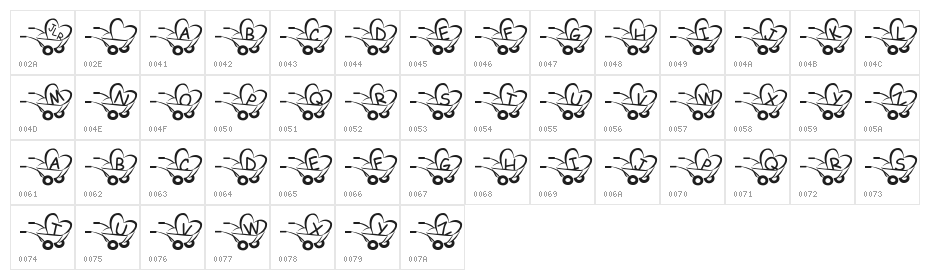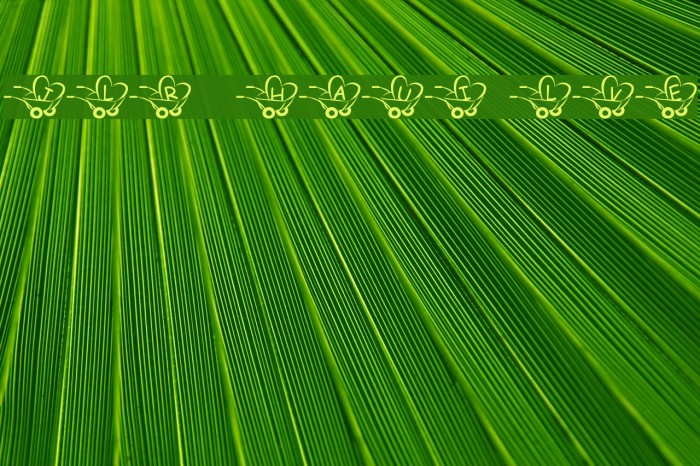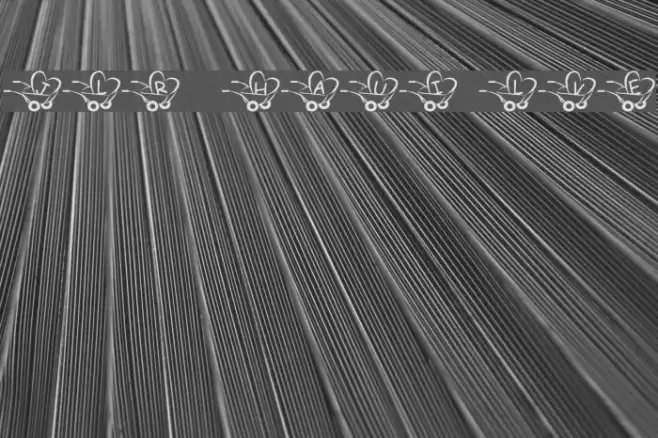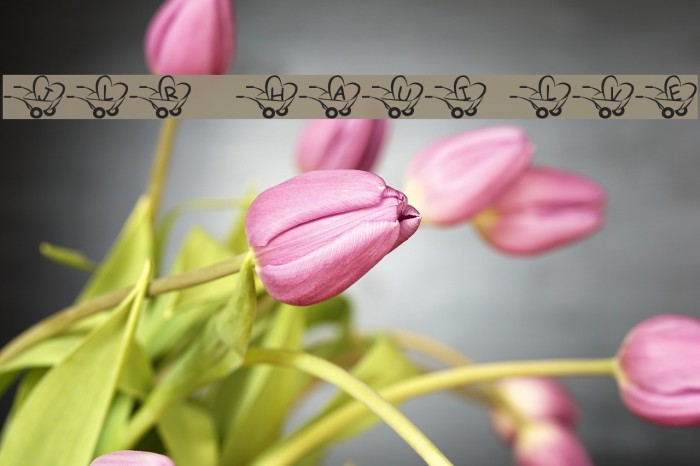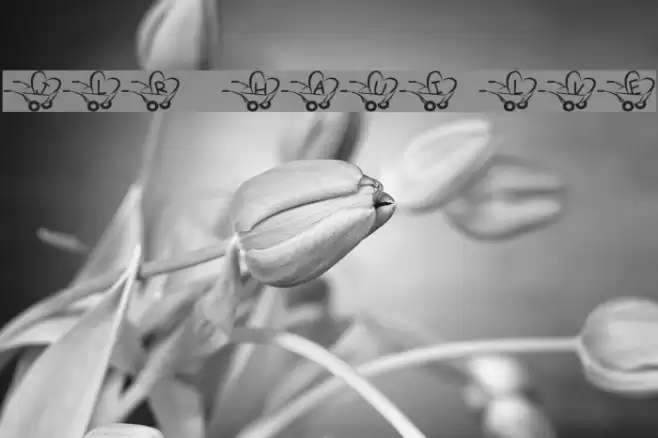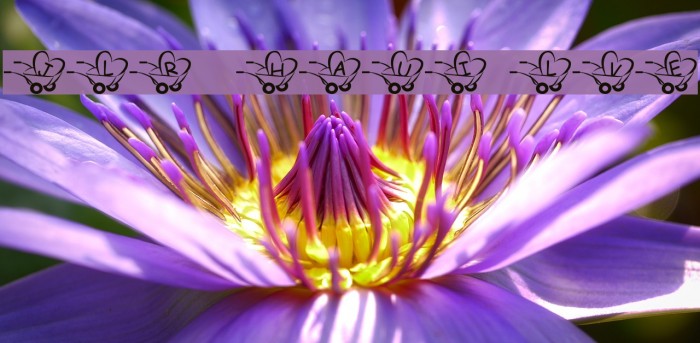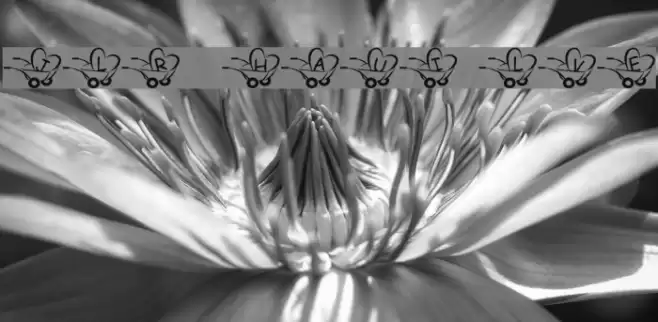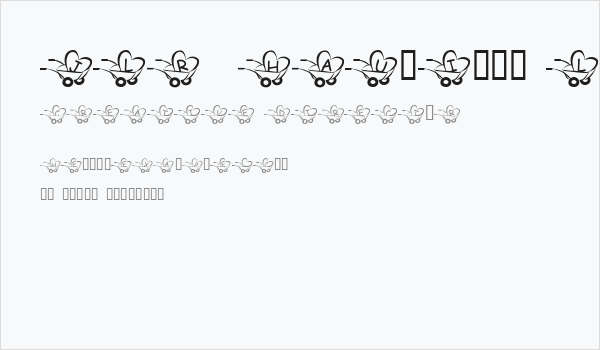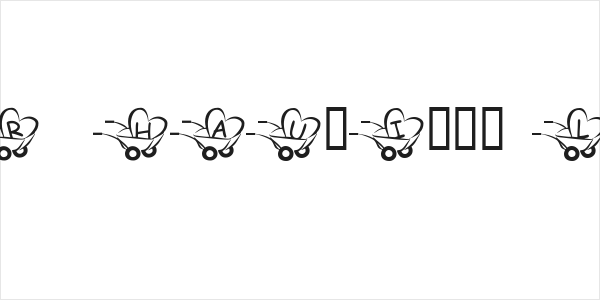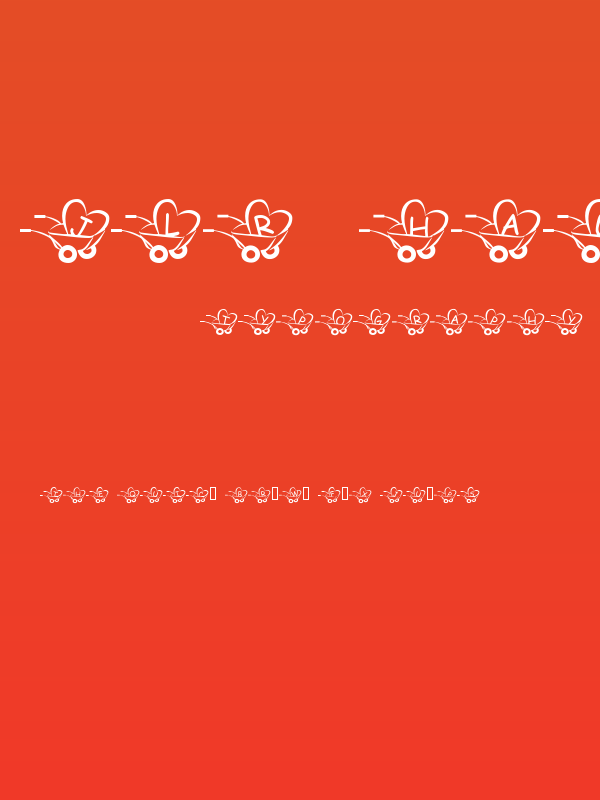
JLR Haulin' Love Font
JLR Haulin' Love Description
This whimsical and playful font features each letter encased in a heart shape, with a wheelbarrow design beneath, giving it a unique and charming appearance. The letters are bold and clear, making them easily readable despite the decorative elements. The overall design is consistent across both uppercase and lowercase letters, as well as numbers and special characters. The heart and wheelbarrow motif adds a sense of fun and creativity, making it ideal for projects that require a lighthearted and affectionate touch.
| Overall Style | Whimsical |
| Proposed Projects | Ideal for children's books, greeting cards, playful branding, and Valentine's Day promotions. |